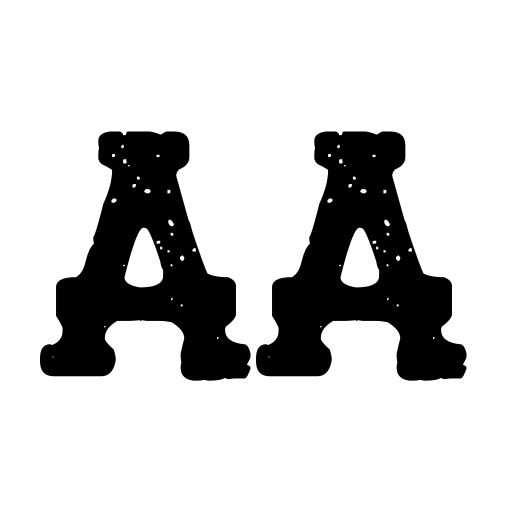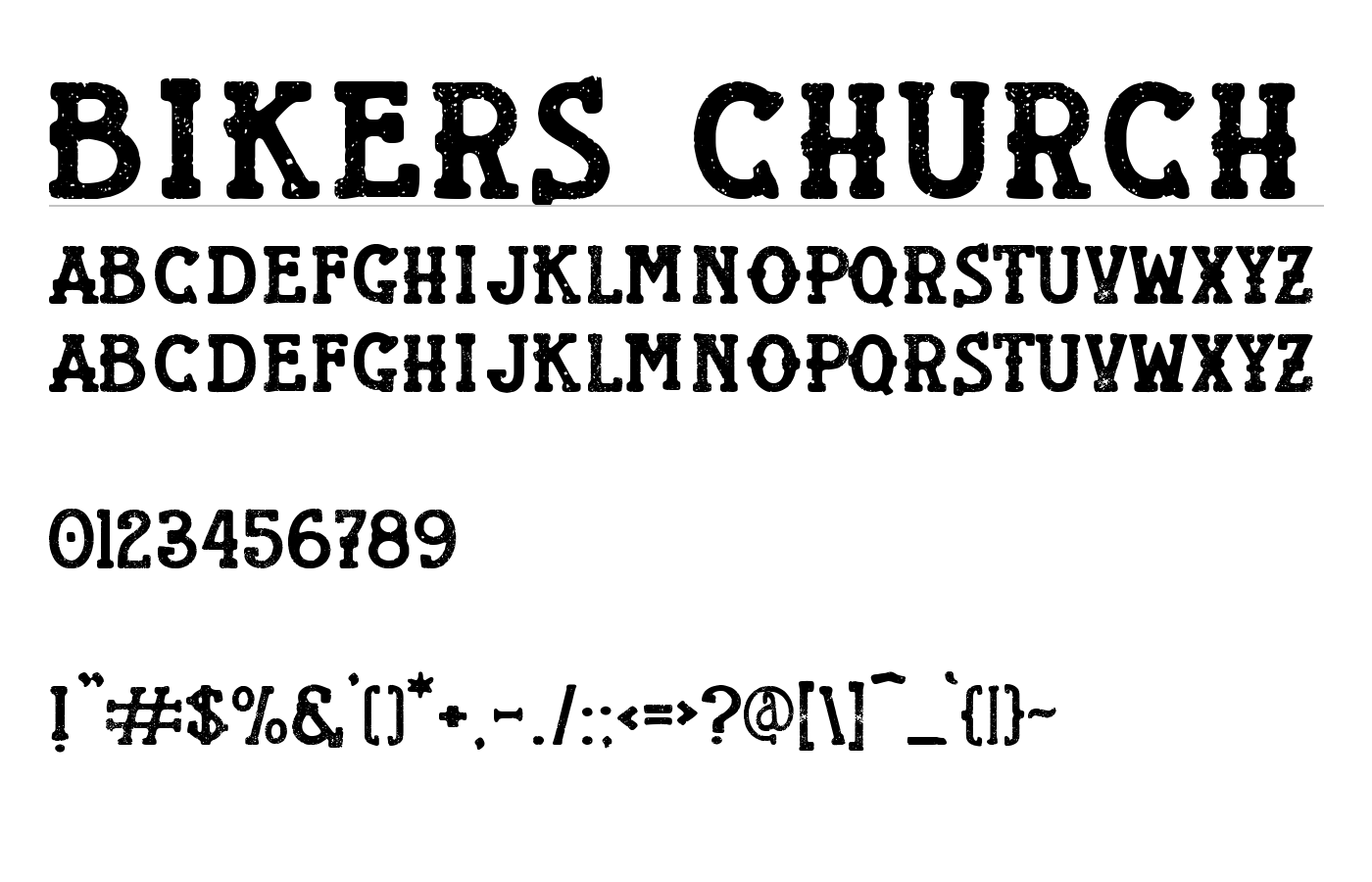
Bikers Church is a bold slab serif font with a rugged, distressed texture that gives it a gritty, vintage feel. Its strong, blocky letterforms and slab serifs convey a sense of toughness and durability, making it ideal for designs that need a bold, impactful presence with a rebellious or retro vibe. This font works especially well for logos, posters, and branding related to biker culture, music, or any project seeking an edgy, authentic look.
Bikers Church Font
About Bikers Church Font